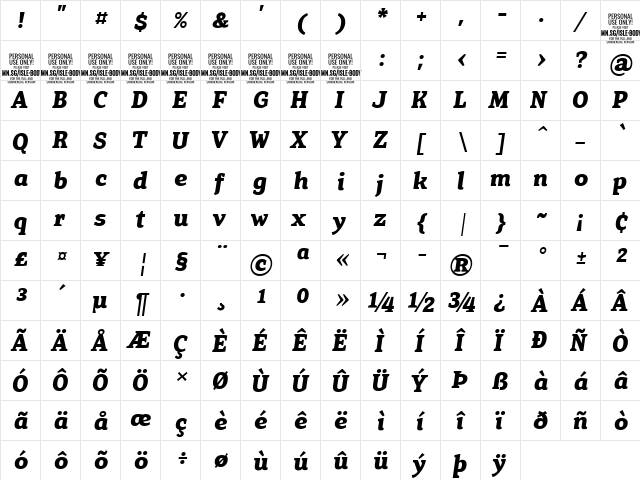
Isle Body PERSONAL USE Bold Italic
| Foundry | Mans Greback |
| Designer | Mans Greback |
Design Context for Isle Body PERSONAL USE Typeface
Isle Body PERSONAL USE is a composed and adaptable typeface that performs quietly and consistently across a wide range of design contexts. The slanted form adds forward momentum and visual energy. Its bold stroke weight gives it real presence on the page.